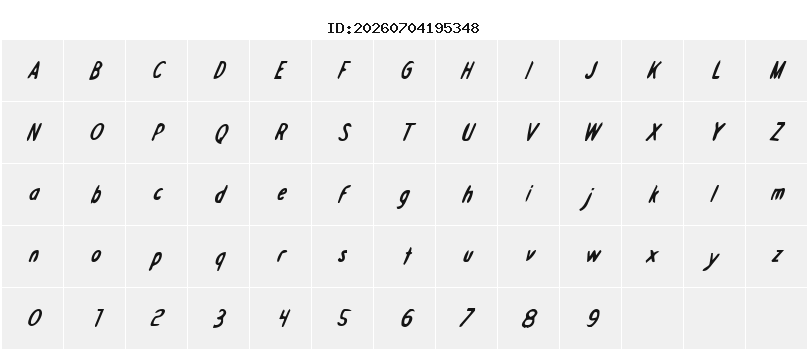
Drafting Table Bold Italic Preview
• Font Name: Drafting Table Bold Italic
• Full Font Name: Drafting Table Bold Italic
About Drafting Table Bold Italic.ttf
Drafting Table Bold Italic.ttf is a modern, elegant sans-serif font designed for ultimate readability and visual harmony. Perfect for branding, headlines, web design, and print materials.